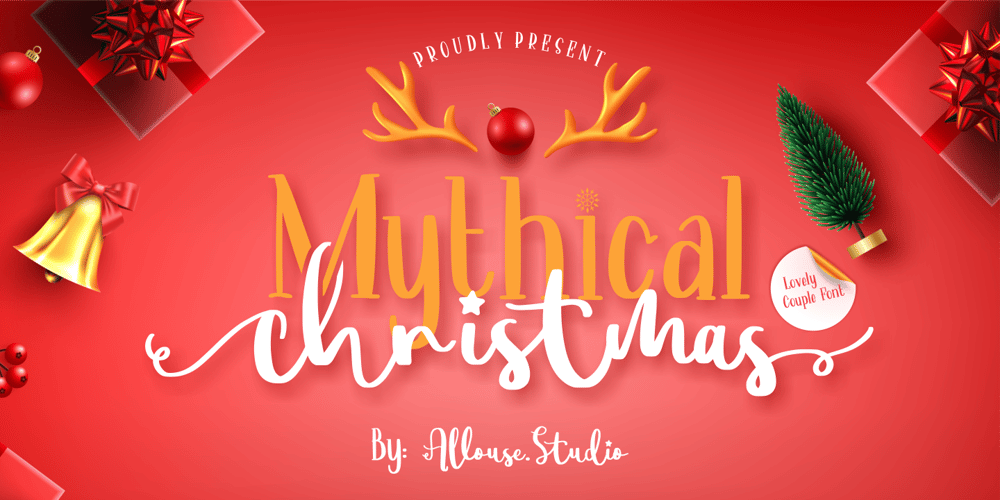
Mythical Christmas
Mythical Christmas font
Mythical Christmas Font Family was designed by Fachrizal Yusuf and published by Allouse Studio. Mythical Christmas contains 2 styles and family package options. Mythical Christmas Script bring you the joyfull feel with bouncy calligraphy styles with Beginning and Ending swash to play around, these also come with Multi-Lingual Support.Mythical Quirky give you an a handwriting serif styles and just including Uppercase Lowercase Number and Multi-Lingual Support. Enjoy these Lovely Couple Font!We highly recommend using a program that supports OpenType features and Glyphs panels like many of Adobe apps and Corel Draw, so you can see and access all Glyph variations.Mythical Christmas is perfect for any tittle, logo, invitation, product packaging, branding project, megazine, social media, wedding, or just used to express words above the background.Enjoy the font, feel free to comment or feedback, send me PM or email. Thankyou!